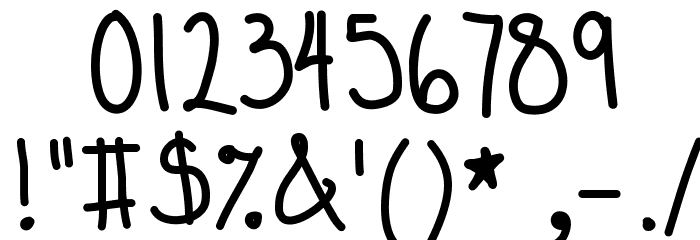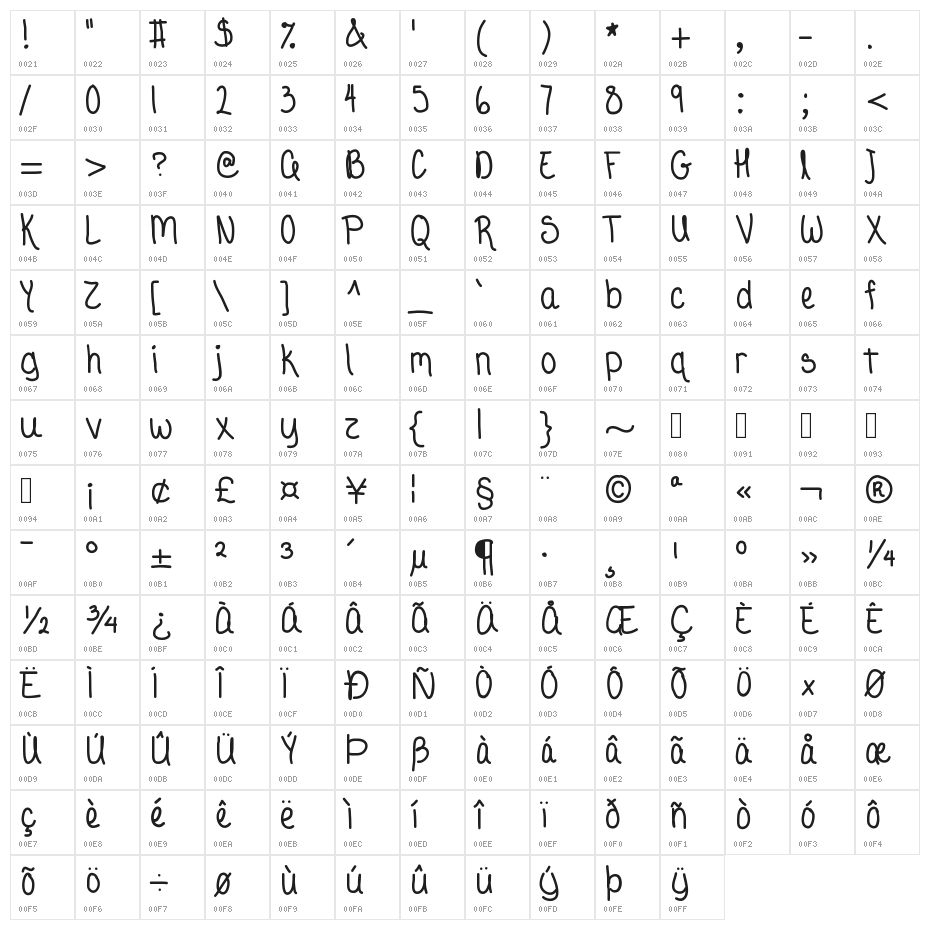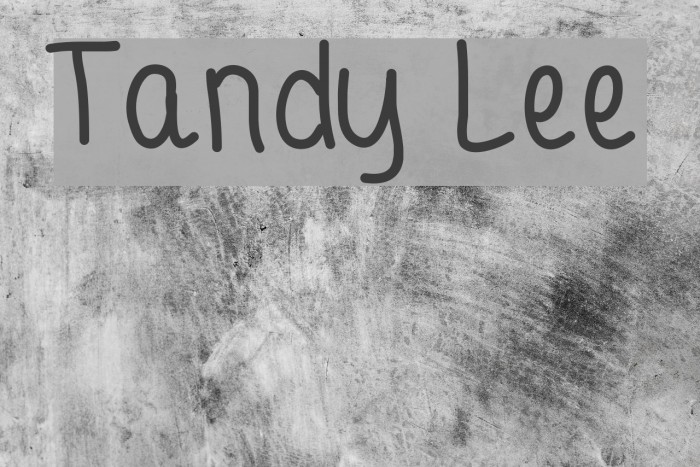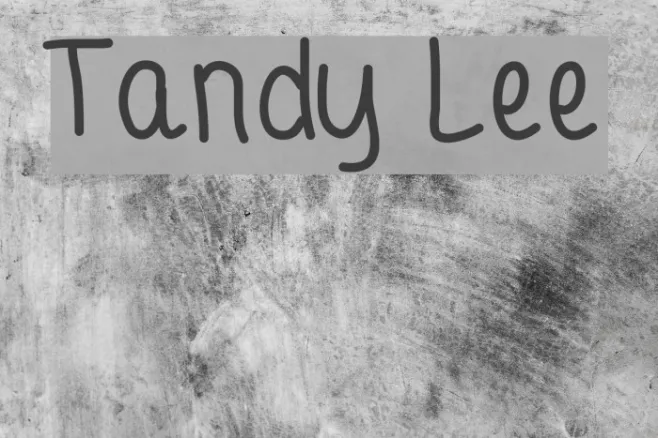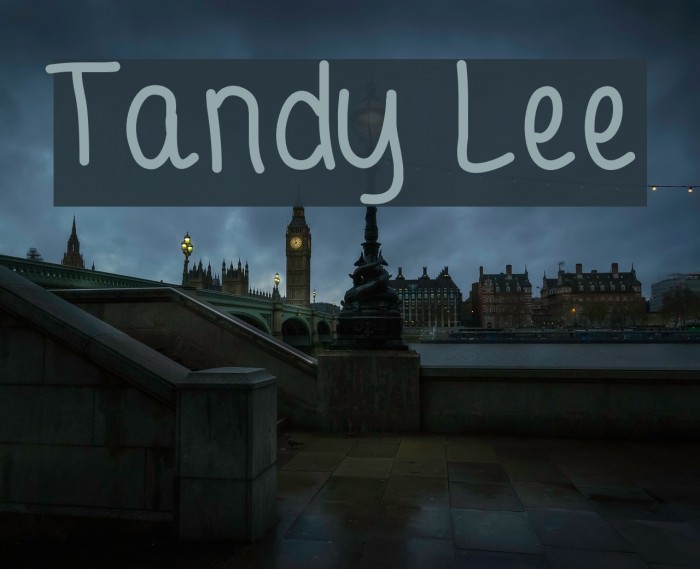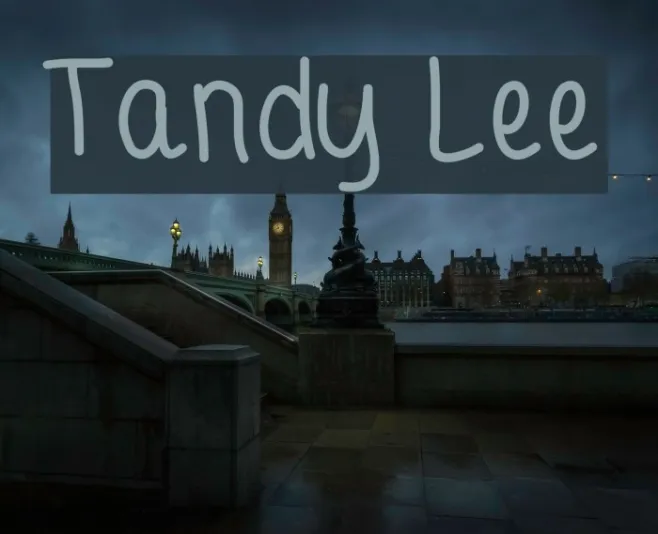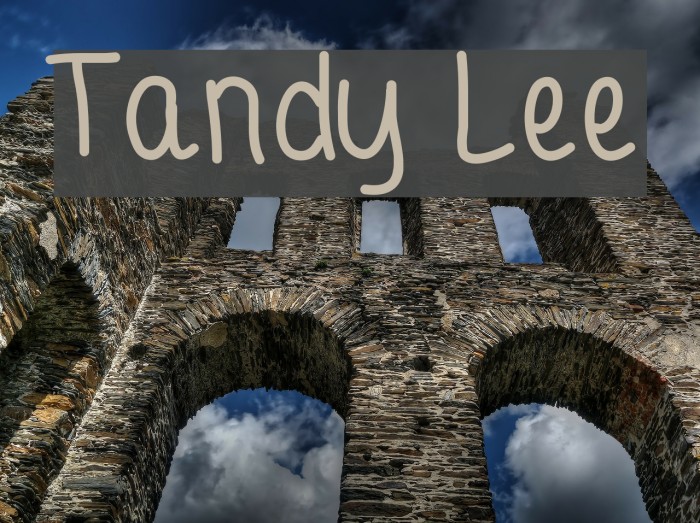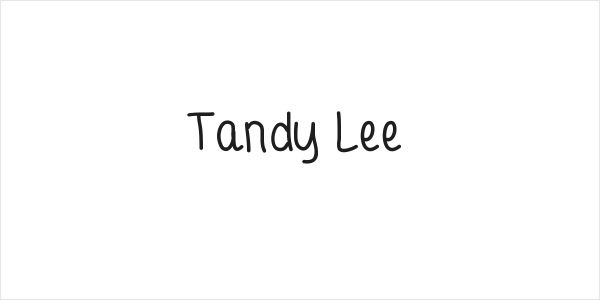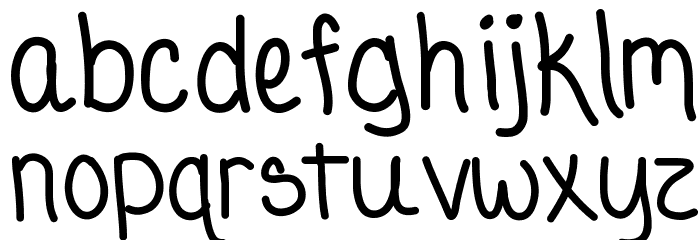
Tandy Lee Font
Tandy Lee Description
This font features a playful and casual handwritten style, characterized by its rounded and slightly irregular letterforms. The strokes are consistent in width, giving it a uniform appearance while maintaining a friendly and approachable feel. The uppercase and lowercase letters are well-balanced, with a slight tilt that adds to the informal aesthetic. The numerals and special characters are crafted to match the overall style, ensuring cohesion across all elements. This font is ideal for projects that require a personal touch, such as greeting cards, invitations, or children's book covers.
Overall StyleCasual, Playful
Use CaseHeadlines, Informal text, Creative projects
Proposed ProjectsIdeal for greeting cards, invitations, children's book covers, and informal branding.